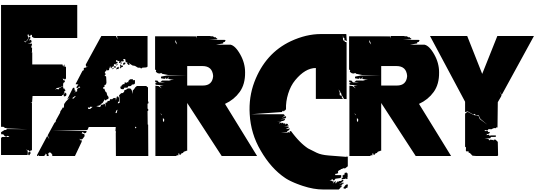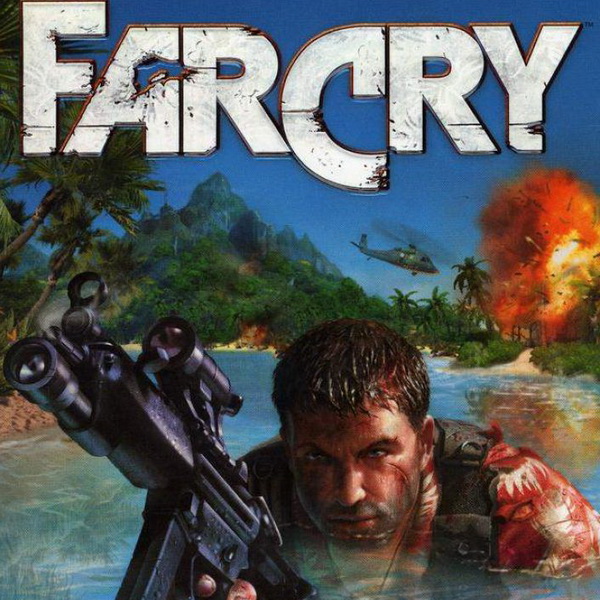
Far Cry Font
Fonts in UseFar Cry is a first-person shooter series with diverse storylines where players navigate hostile environments, battling enemies and factions to survive.
The video game's title lettering resembles the FarCry font by Mike Anderson, available only in capital letters. You can download the font for free from the Fonts Used Section.